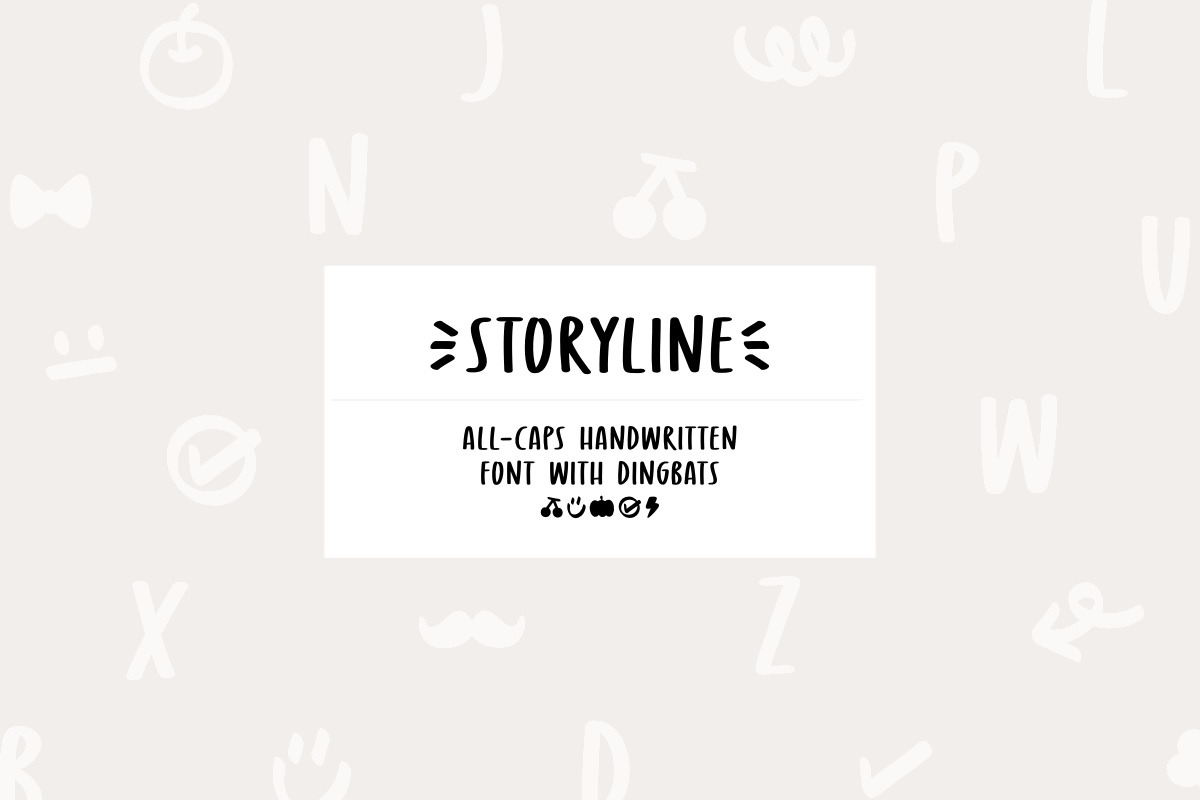
Storyline all-caps handwritten font
Storyline, a casual all-caps handwritten font with dingbats on lowercase. You can use this font in various projects - blog posts, digital planner, invitations, greeting cards, planners, photo albums, decorations and much more. Thank you :)